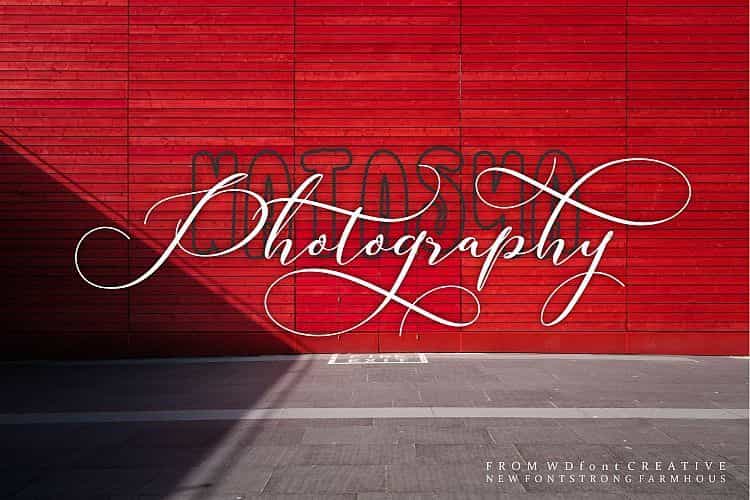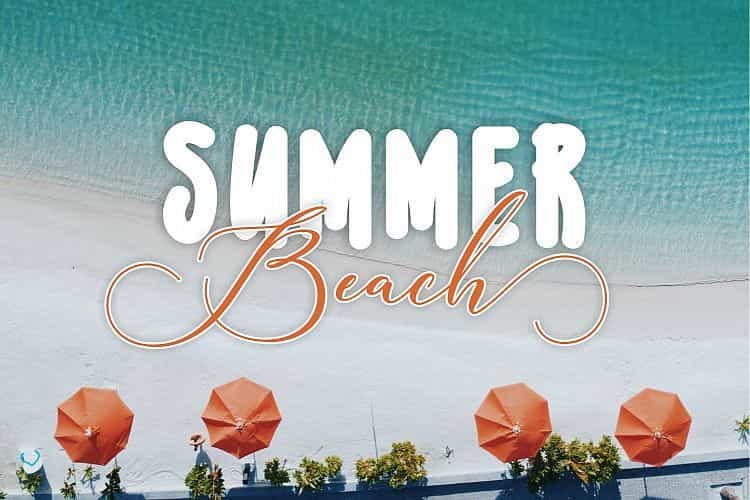
Introducing Strong Farmhouse Font. The Strong Farmhouse Font Duo is a charming, smooth handwritten duo. It is composed of an elegant script version and a bold sans version. The two styles can be blended together perfectly but are also great as independent units.